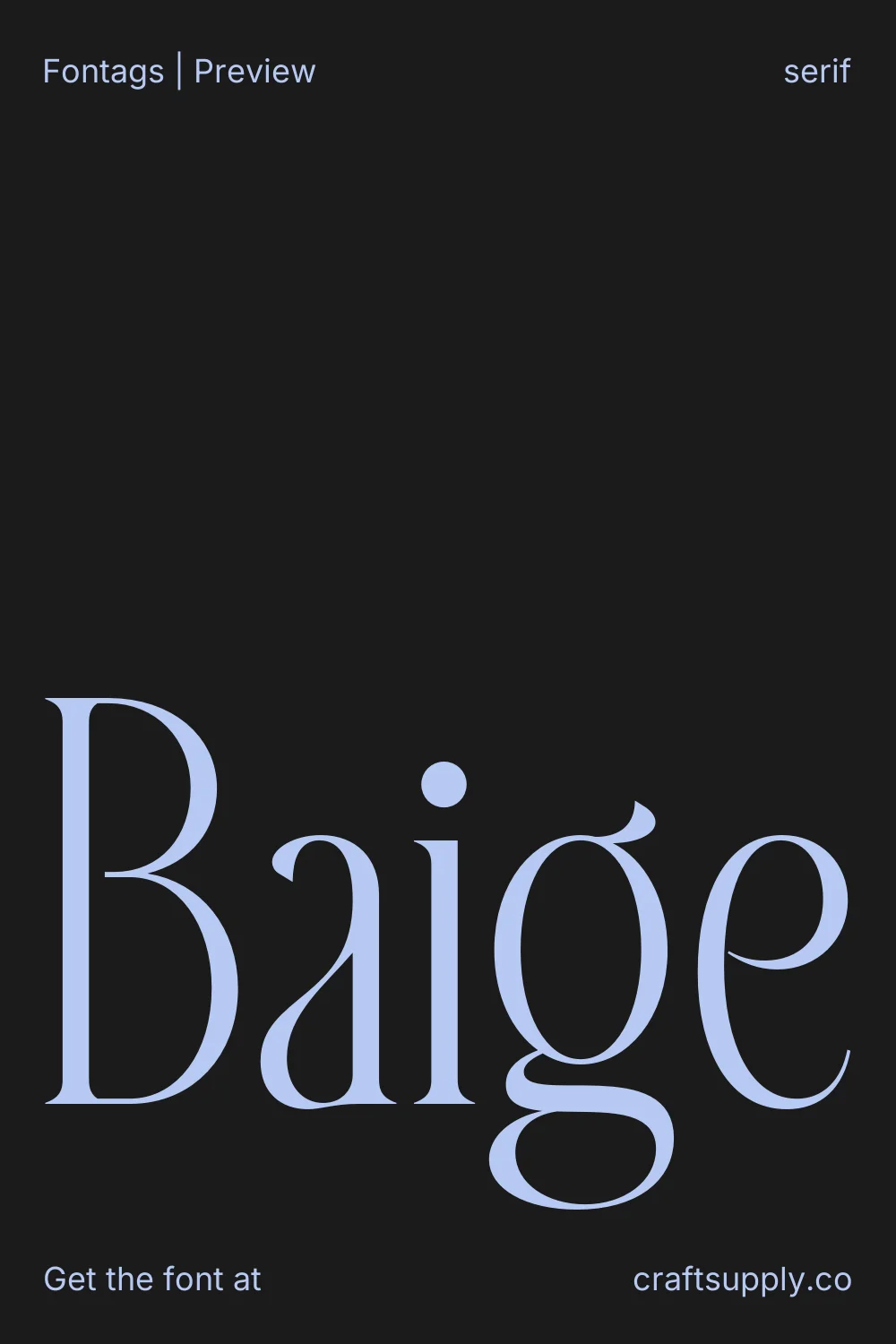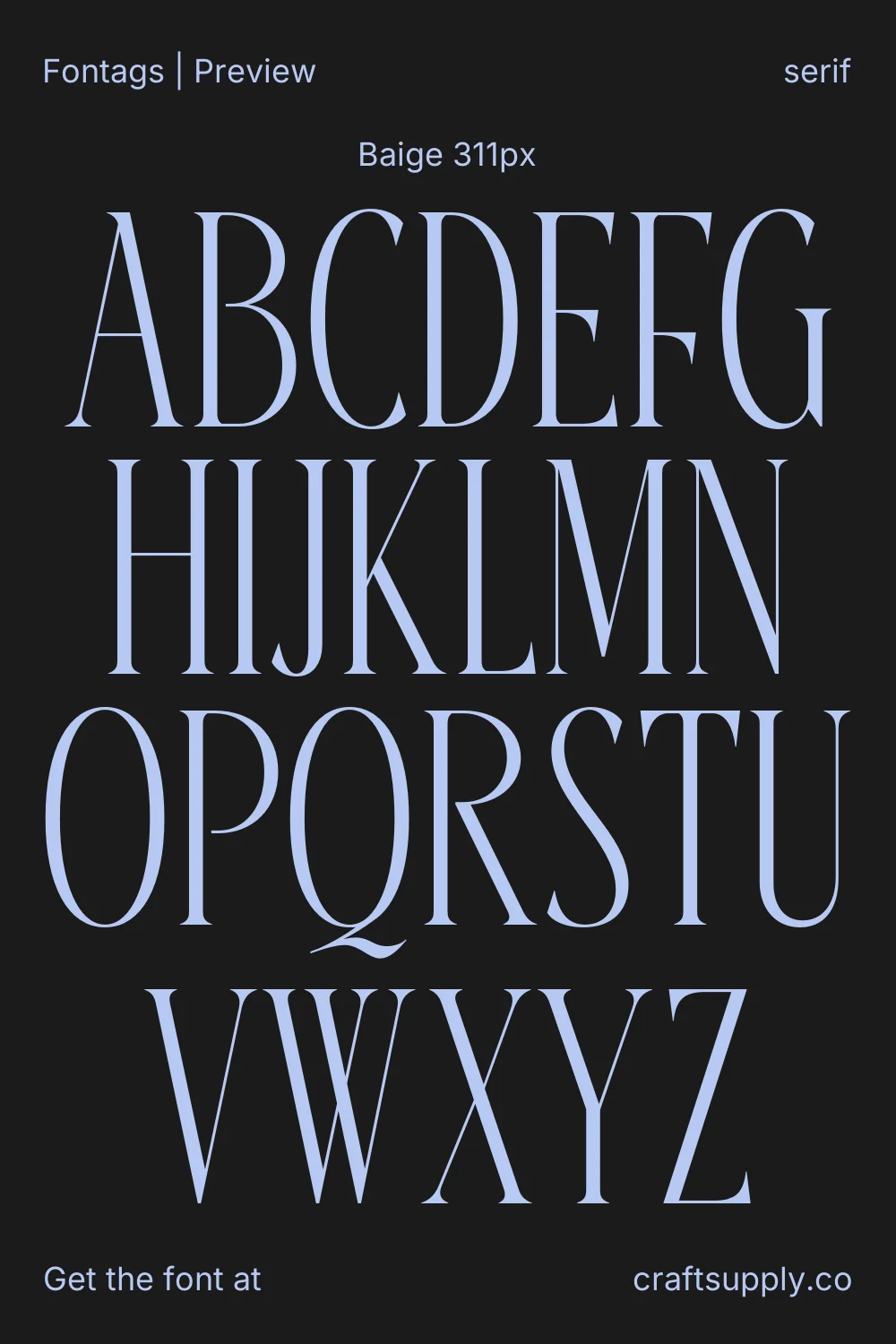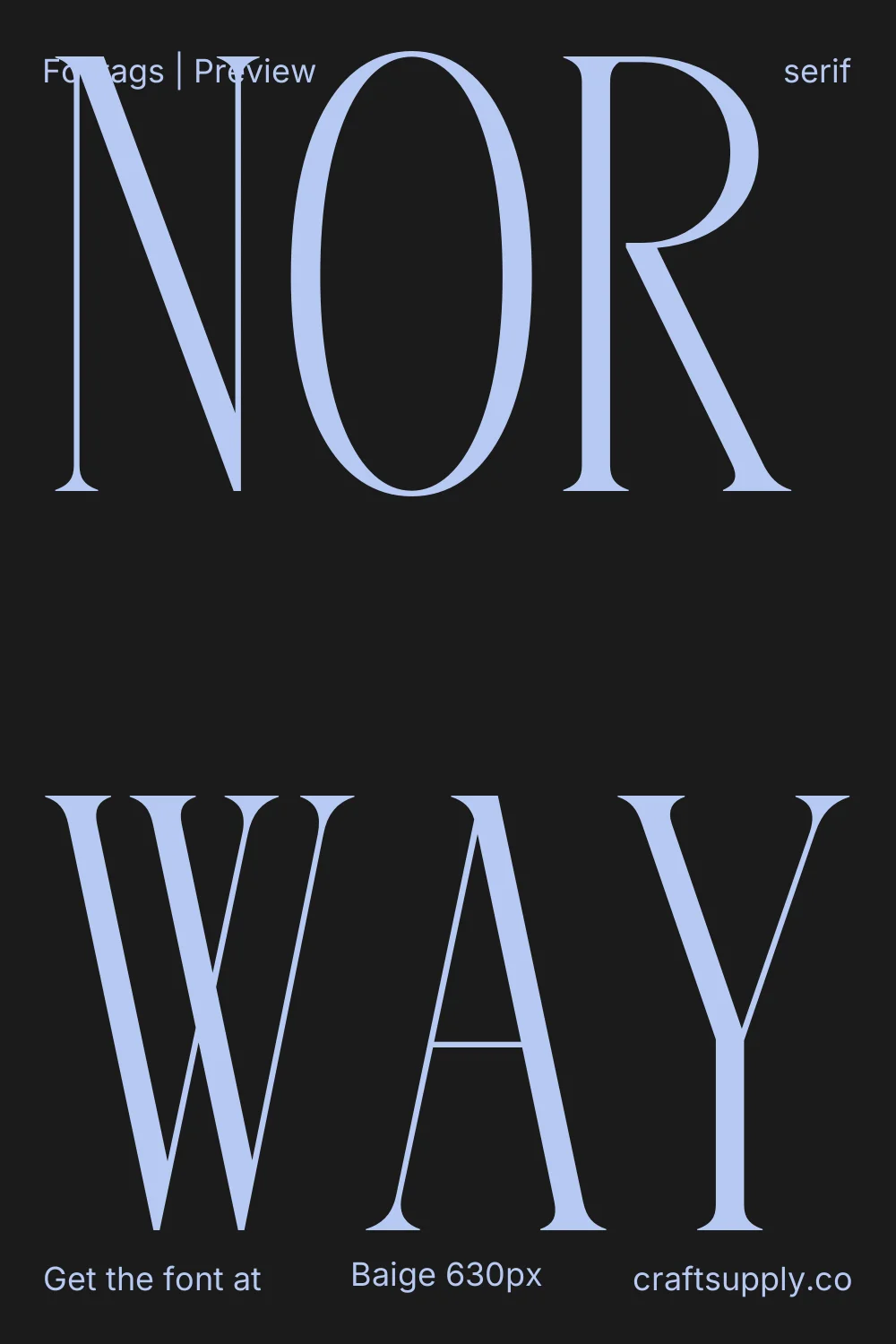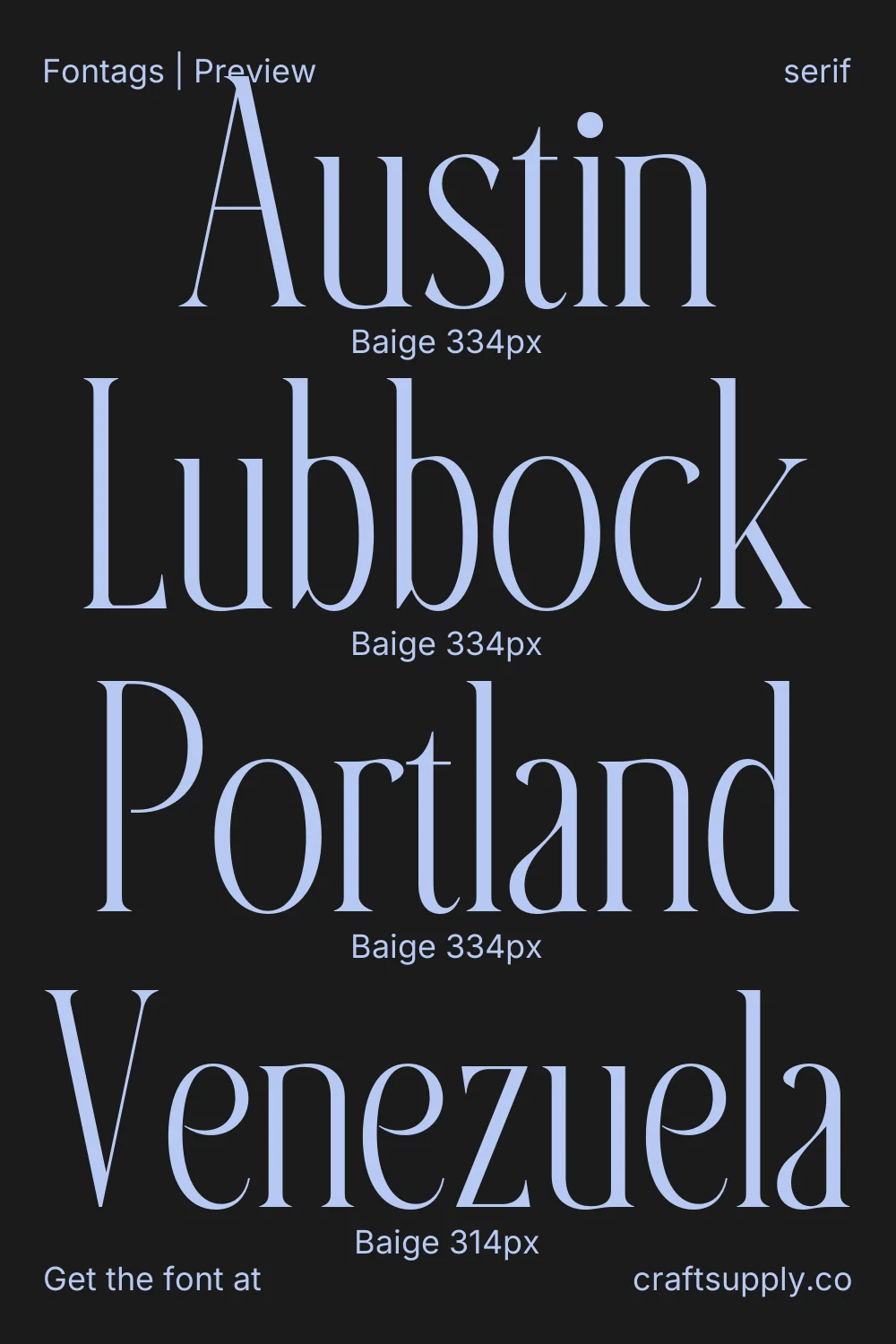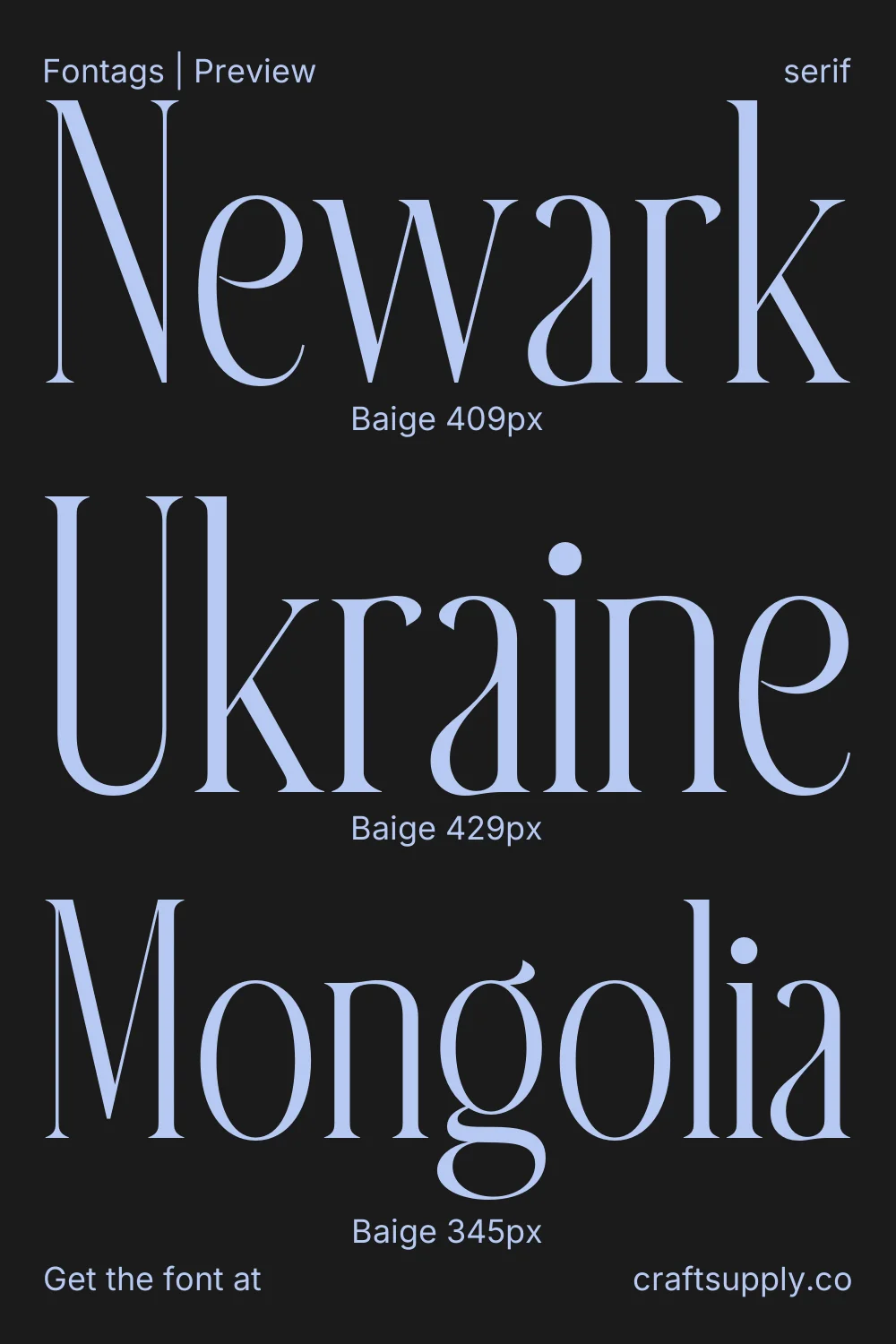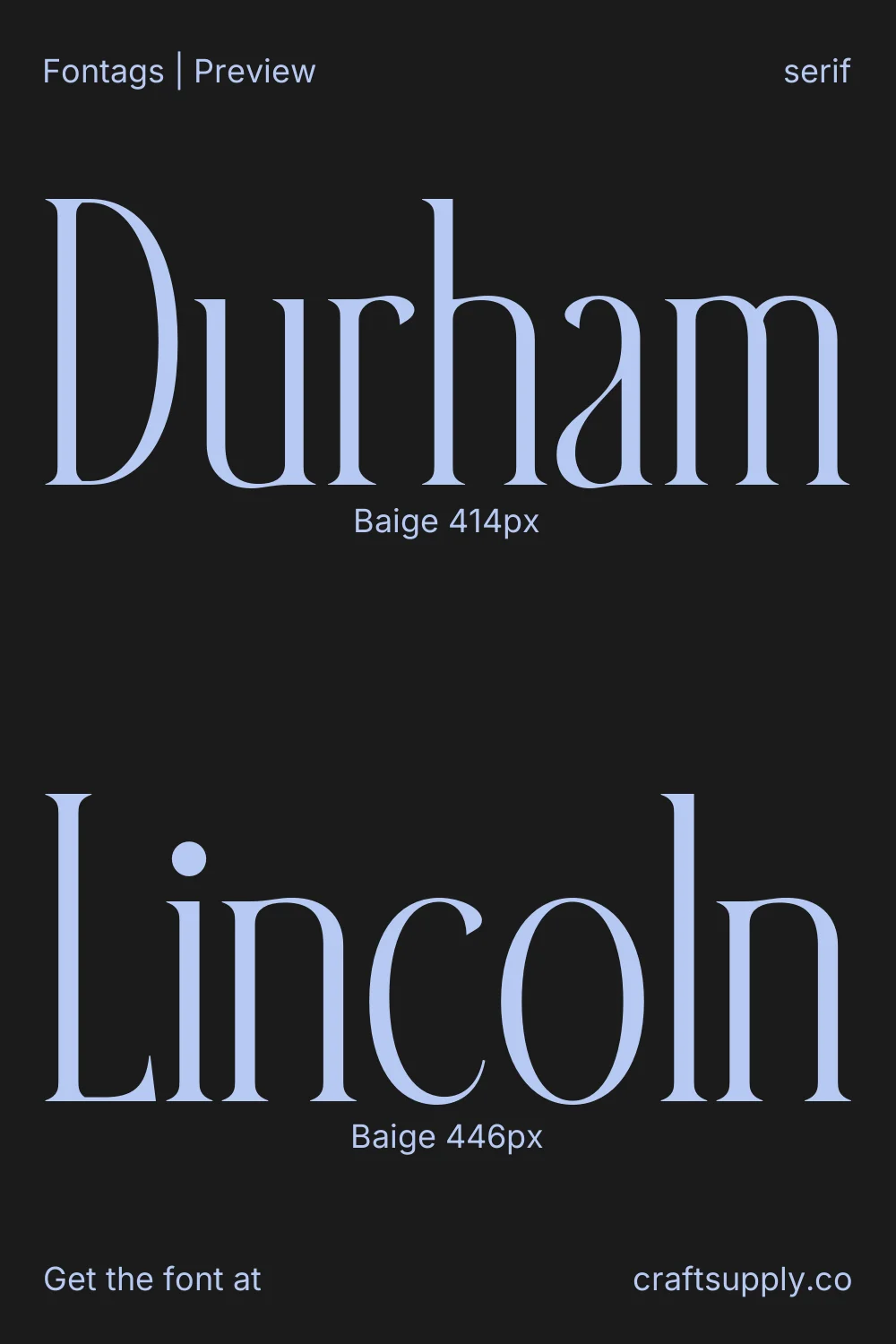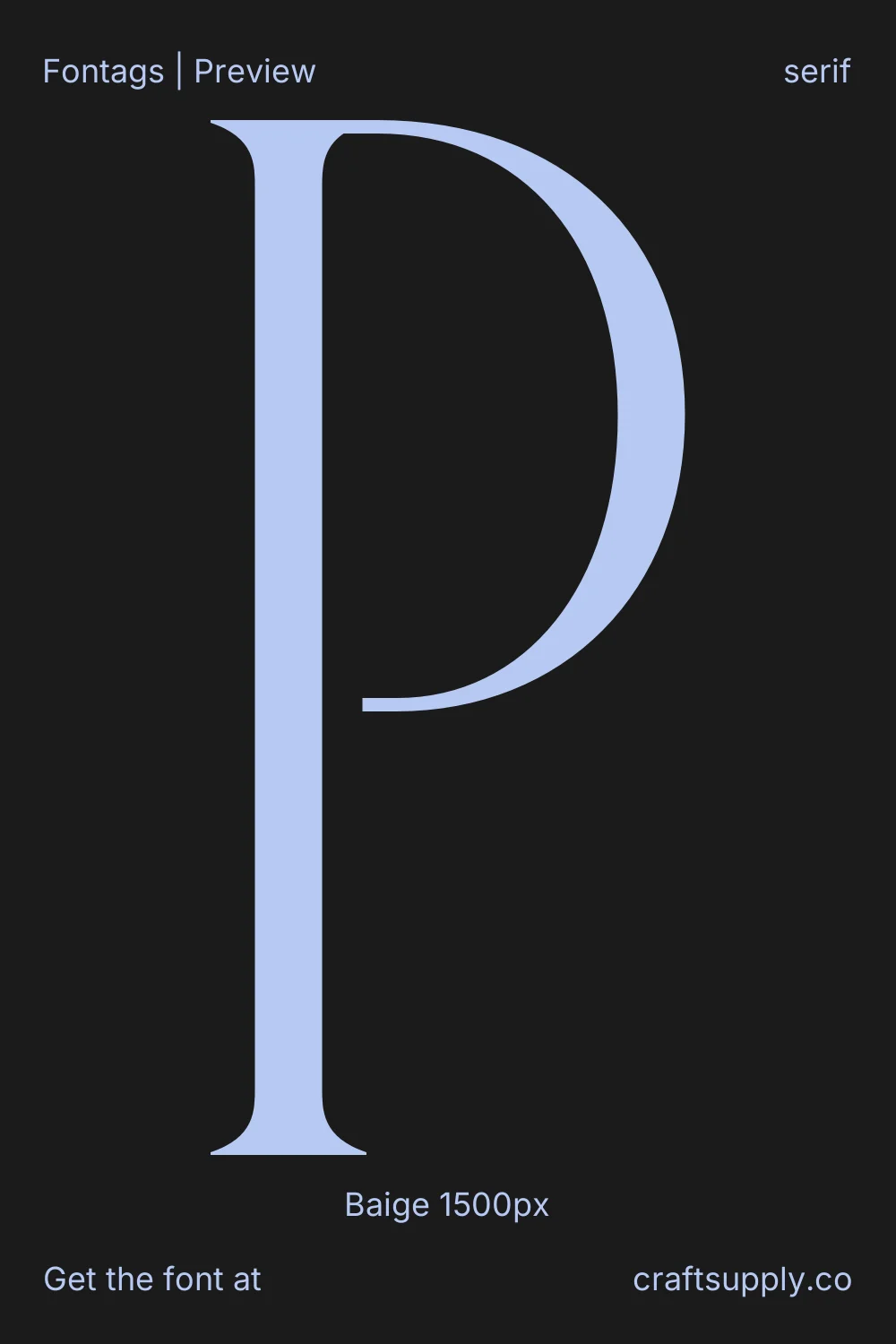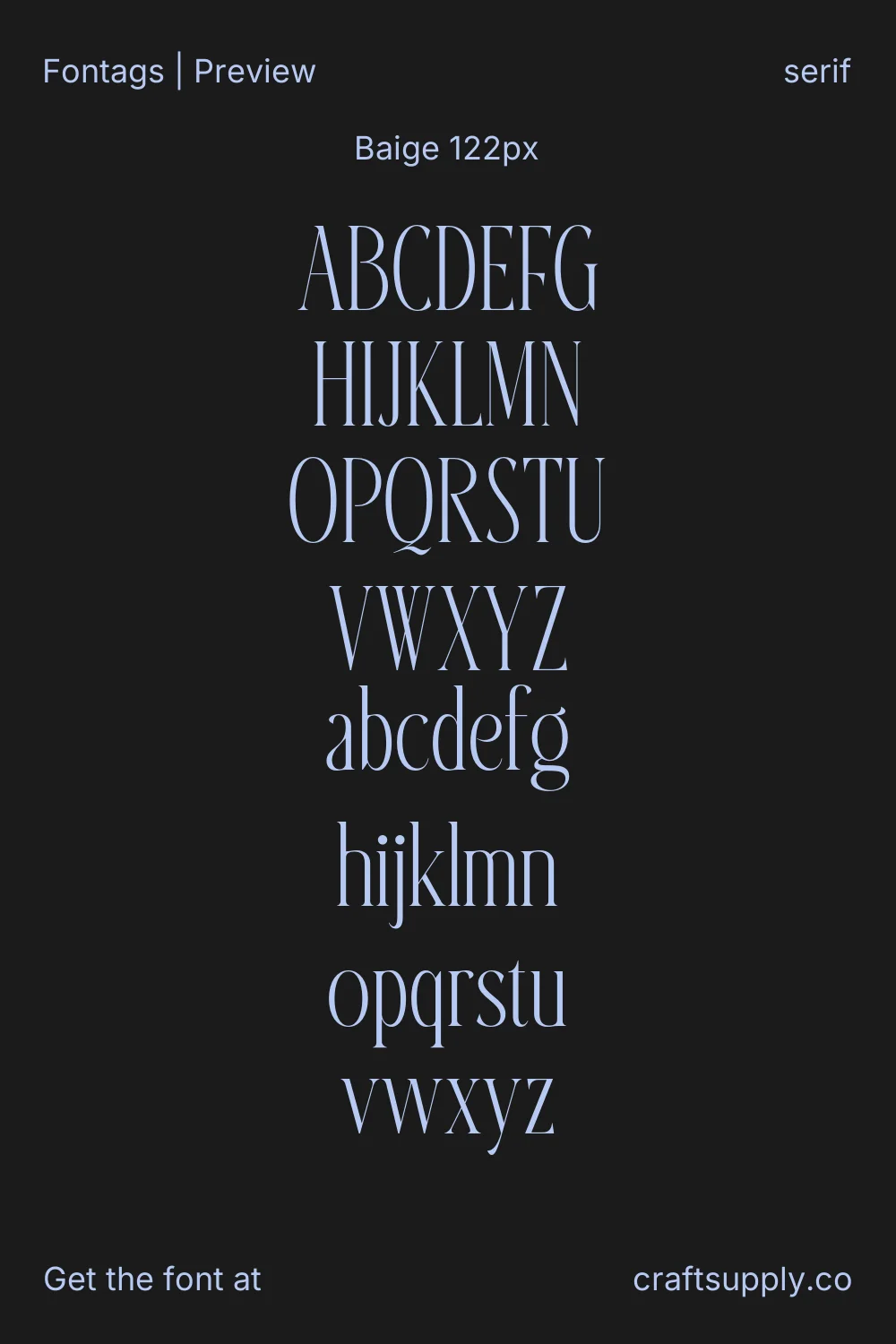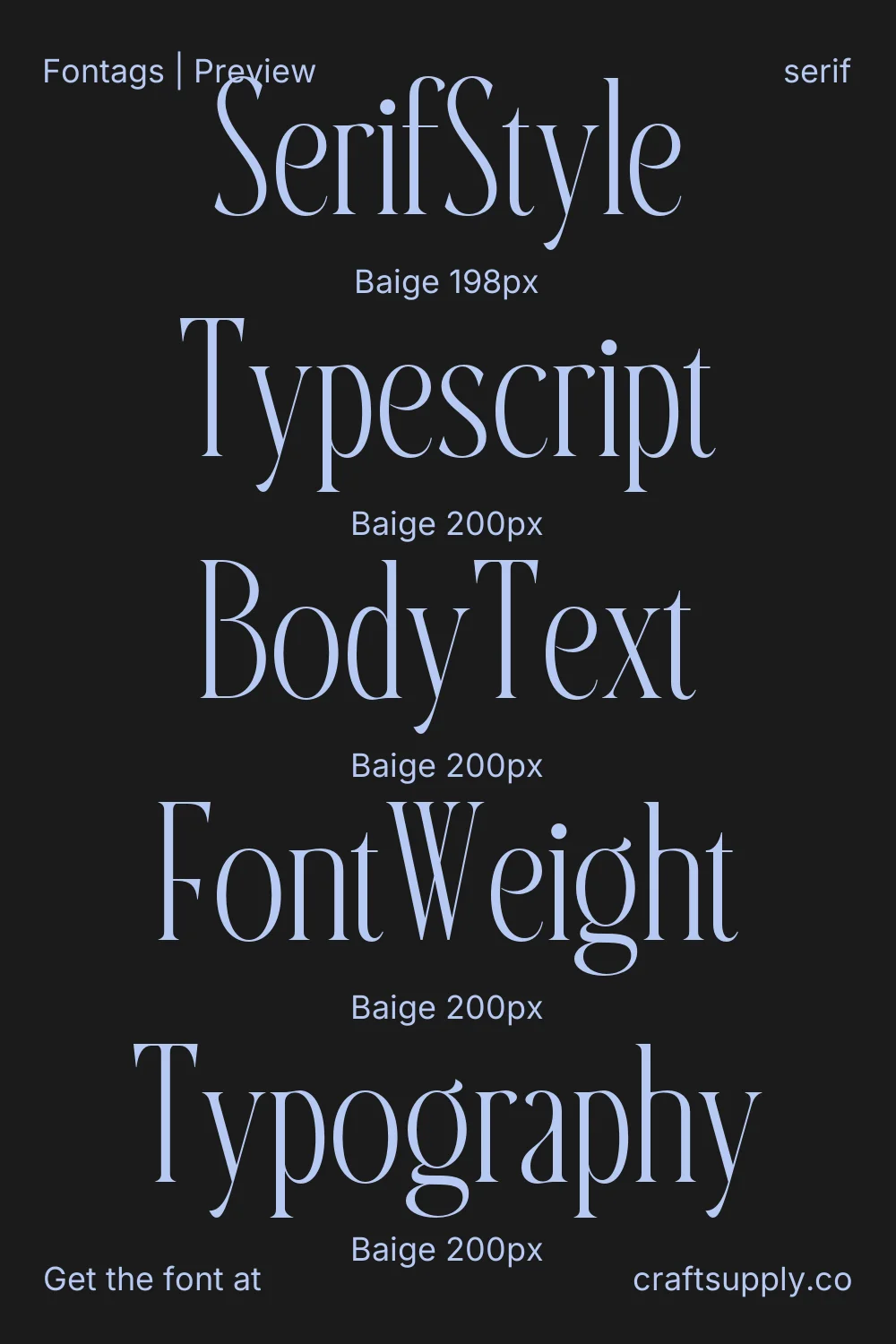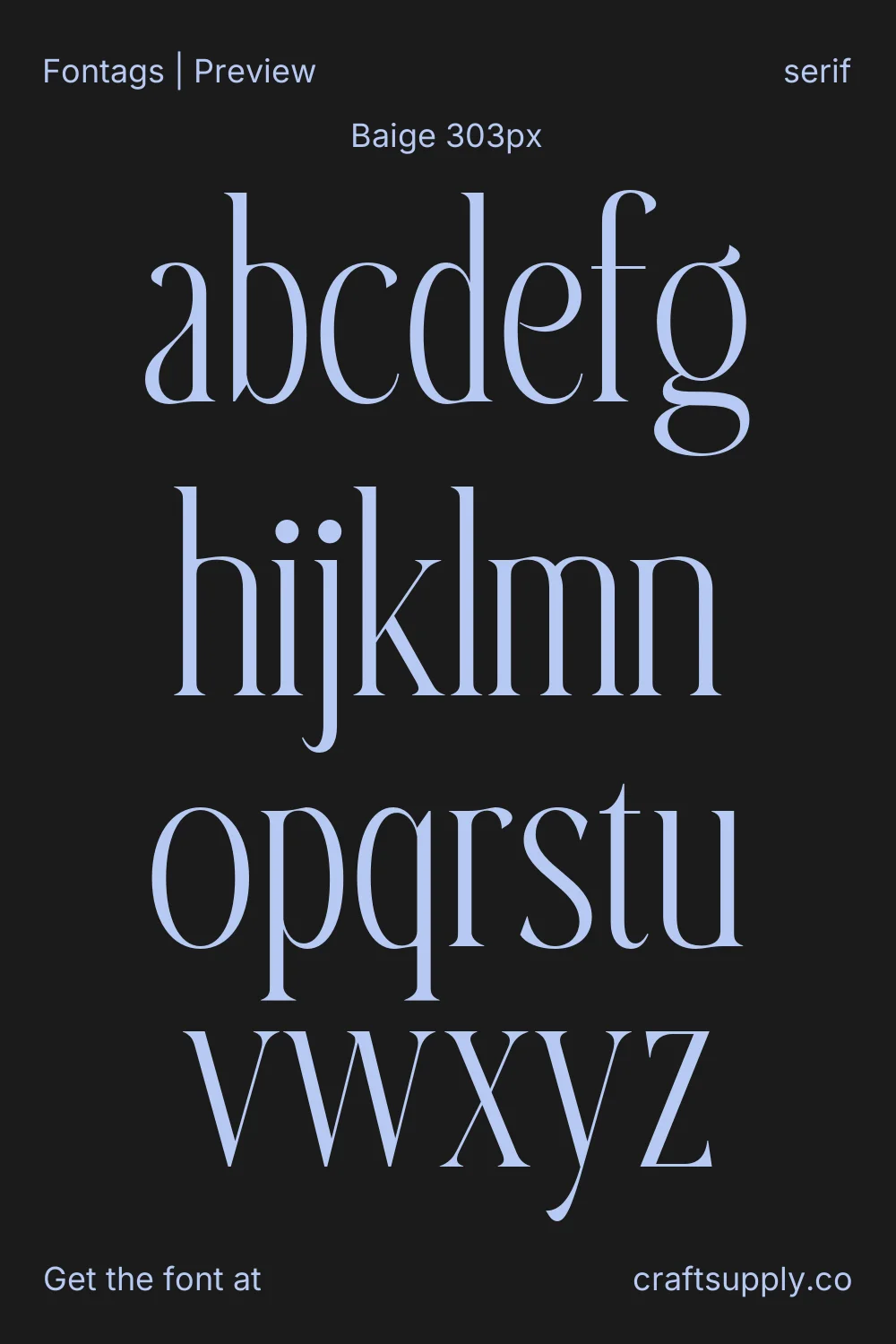
Baige
Baige is a modern condensed serif font defined by tall, elegant letterforms and elongated serifs. Its refined structure balances strong presence with subtlety, making it ideal for headlines, branding, and luxury editorial designs. The minimalist yet timeless aesthetic delivers sophistication and clarity for premium visual projects.